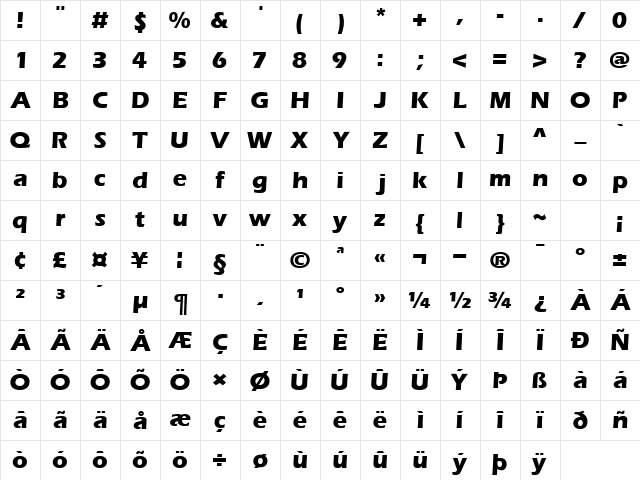
SpeedoBlackSSK Normal
SpeedoBlackSSK Family
Complete SpeedoBlackSSK Normal glyph index. Displaying only characters natively supported by SpeedoBlackSSK Normal font.
Design Context for SpeedoBlackSSK
SpeedoBlackSSK is a composed and adaptable typeface that performs quietly and consistently across a wide range of design contexts.